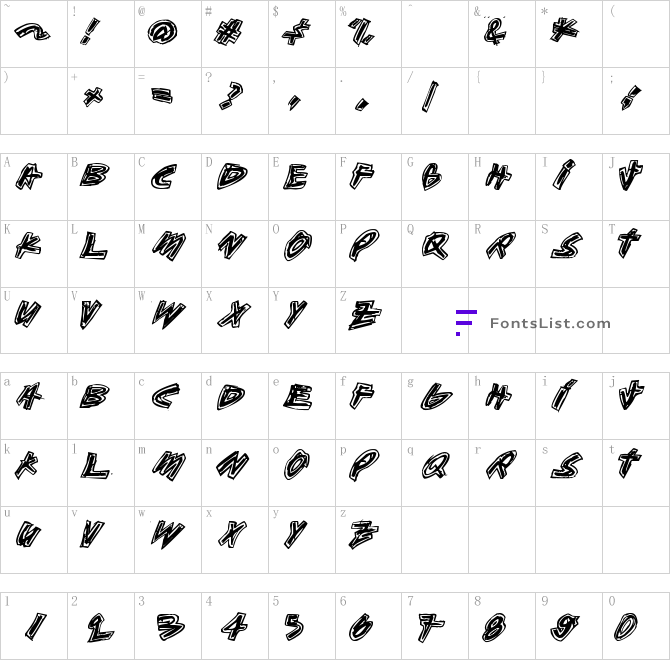
- Font Name:Aikasiirtyma
- Subfamily:Aikasiirtyma:Version 1.00
- Full Name:Aikasiirtyma
Aikasiirtyma.ttf is a very beautiful artistic font, Aikasiirtyma.ttf is widely used in the design and printing of various books and pictures,Aikasiirtyma.ttf has a strong visual impact,Aikasiirtyma.ttf is a commonly used font in newspapers, magazines and books, and is used in posters, e-commerce Poster design, store design, logo design, font design and other fields.Aikasiirtyma.